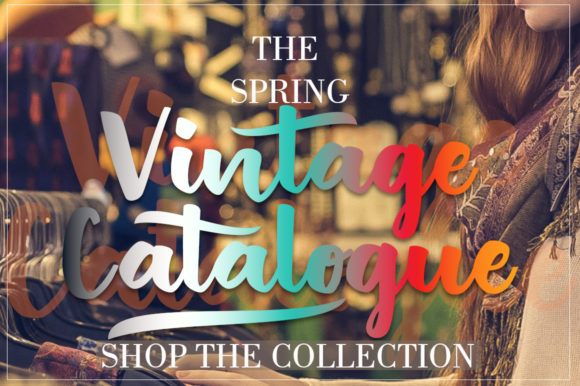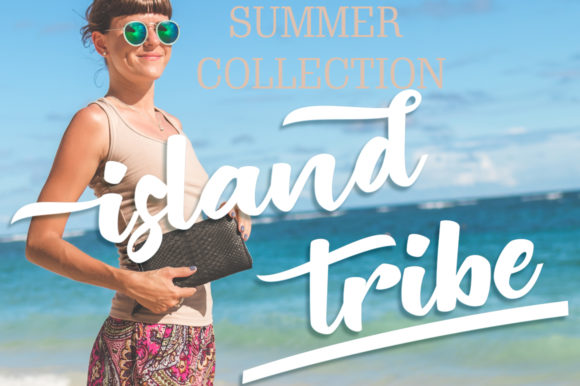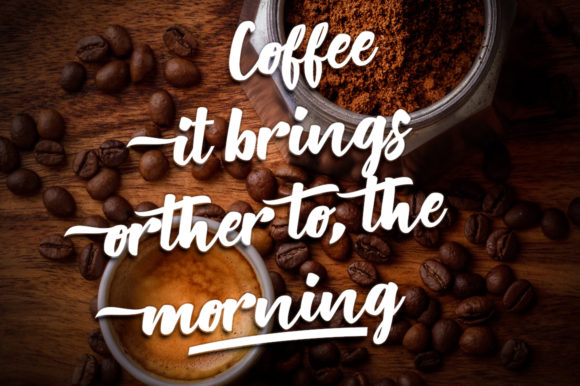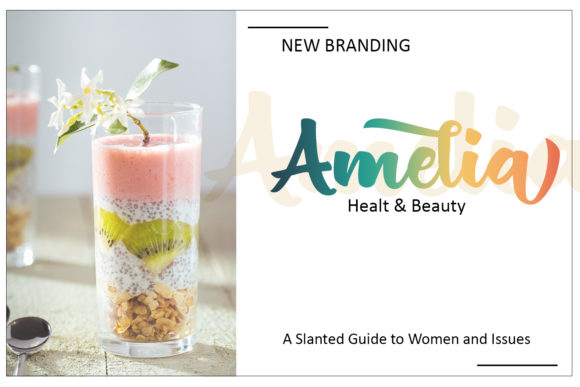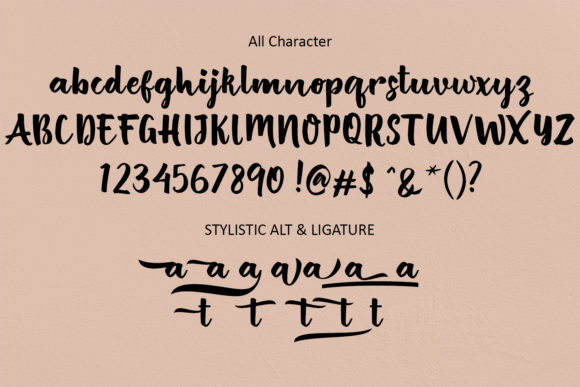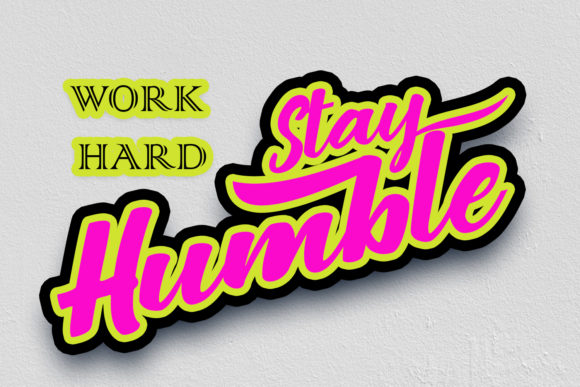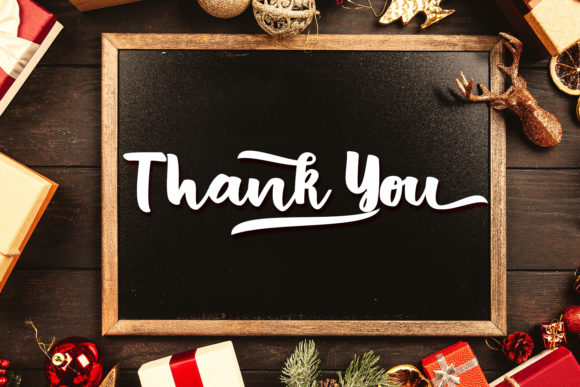
British Font
About British Font
British Script features dry brush imperfections and a very bouncy baseline, making it an equally fun and elegant script!